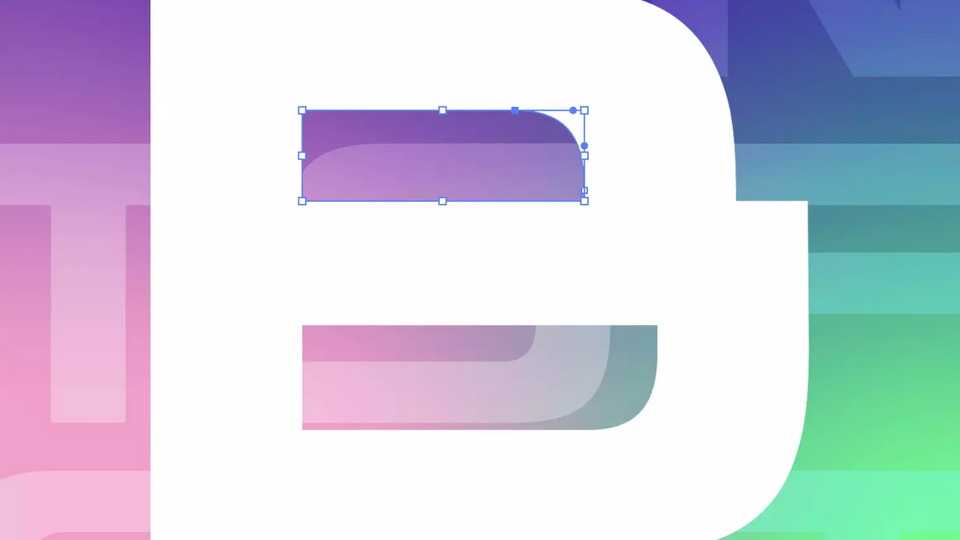
Download Wadik font, a heavy and massive display typeface with wide characters. Wadik font is great for creating logos and headings.
Designer: Sasha Pavljenko